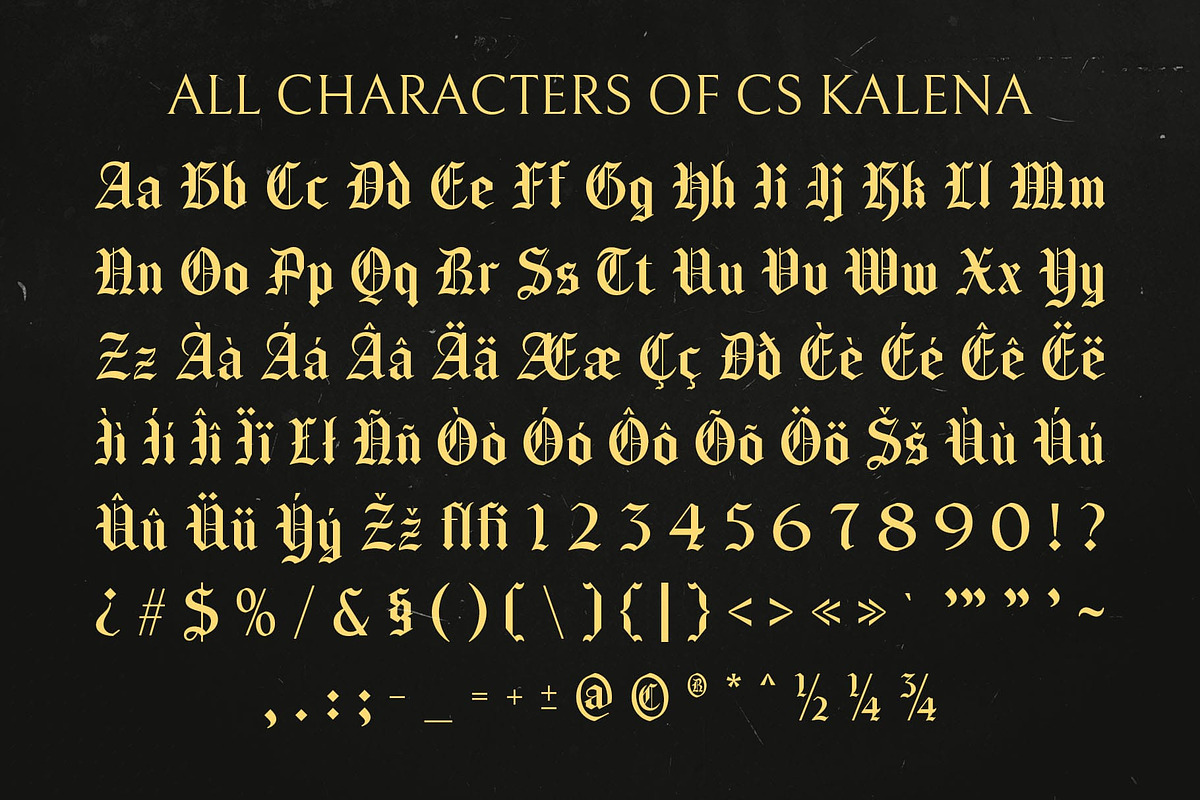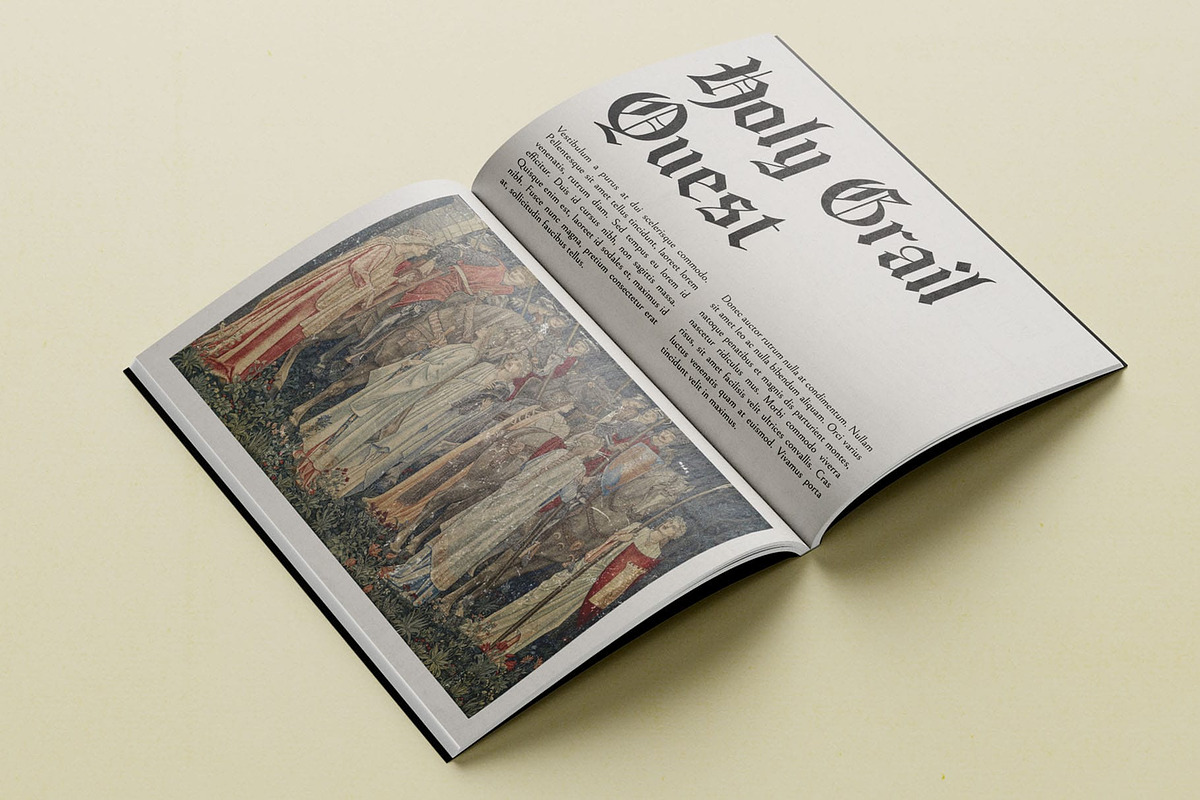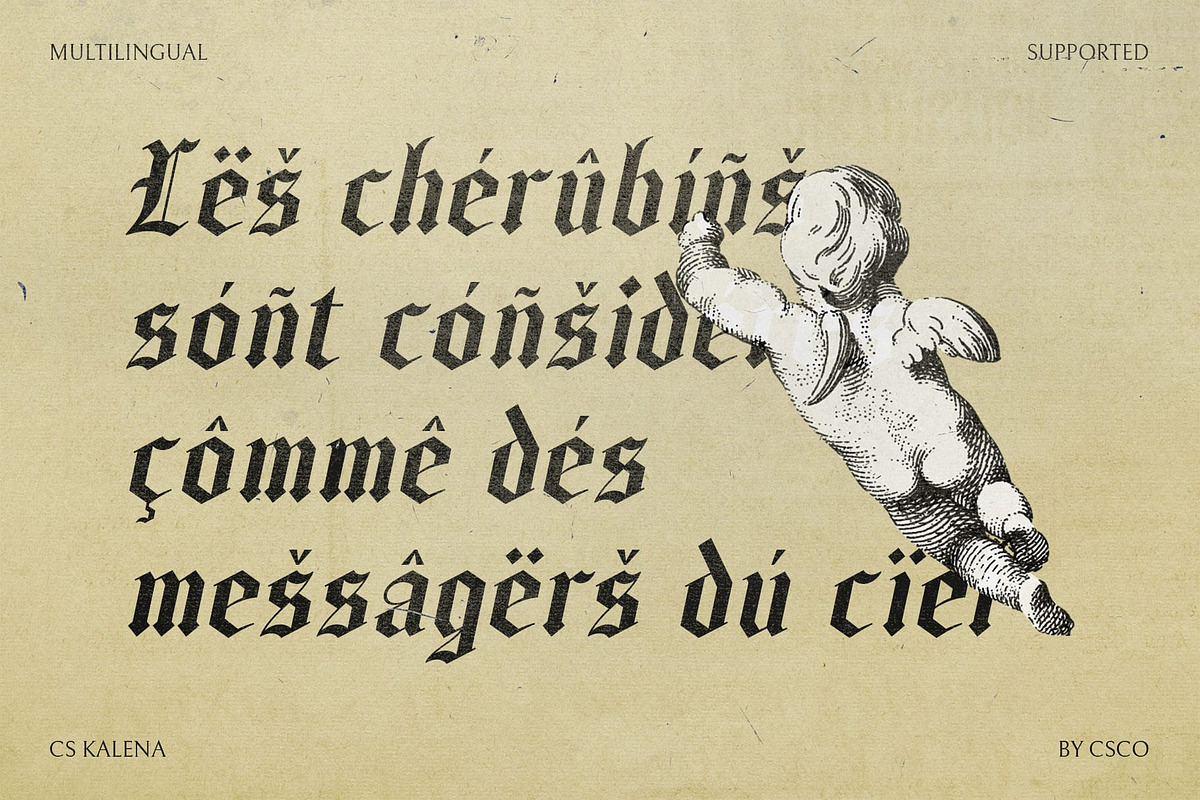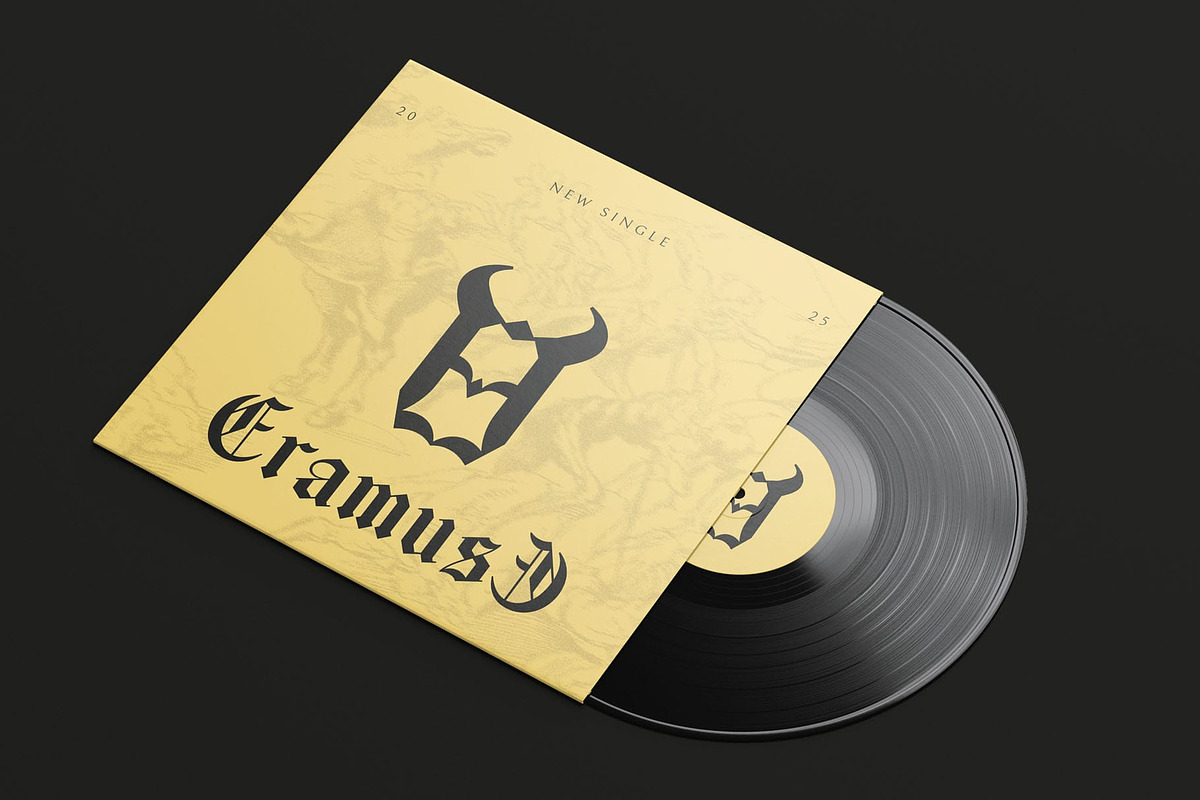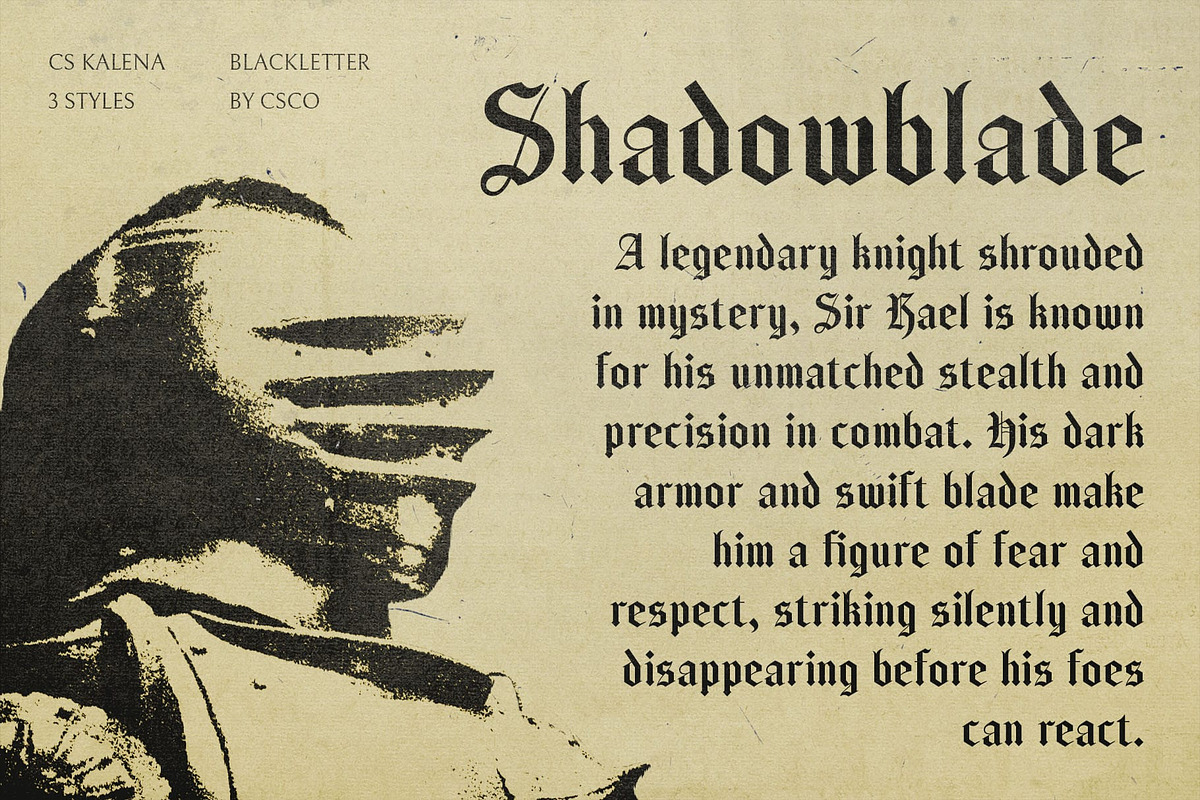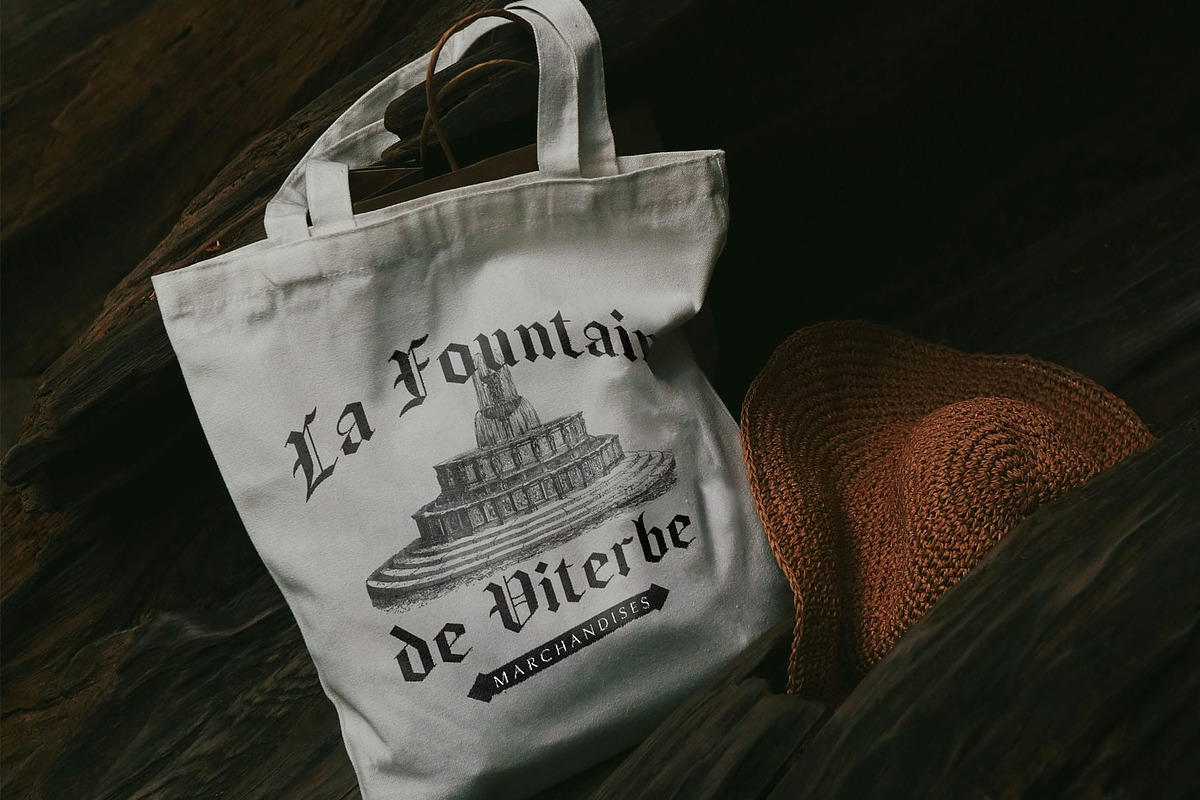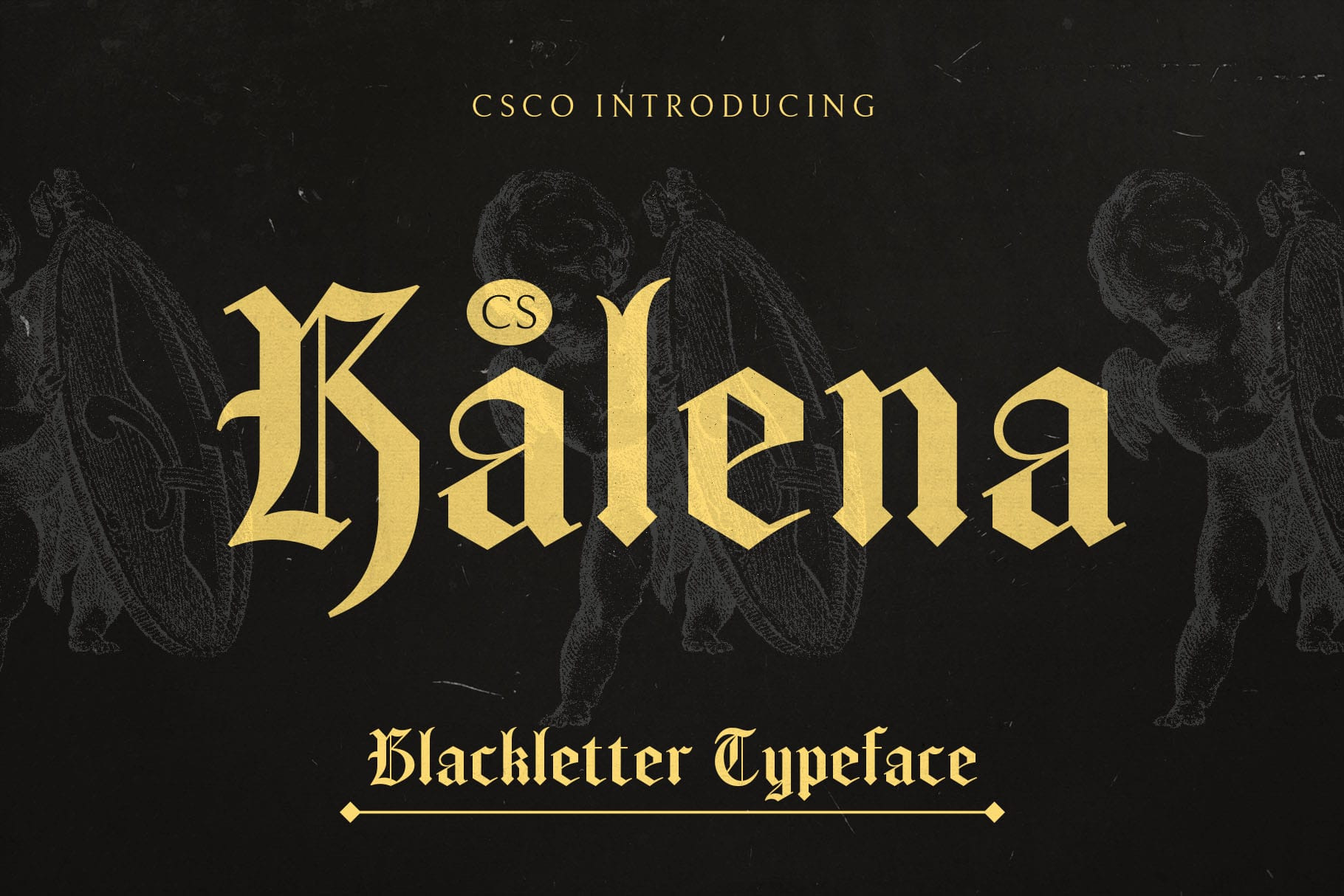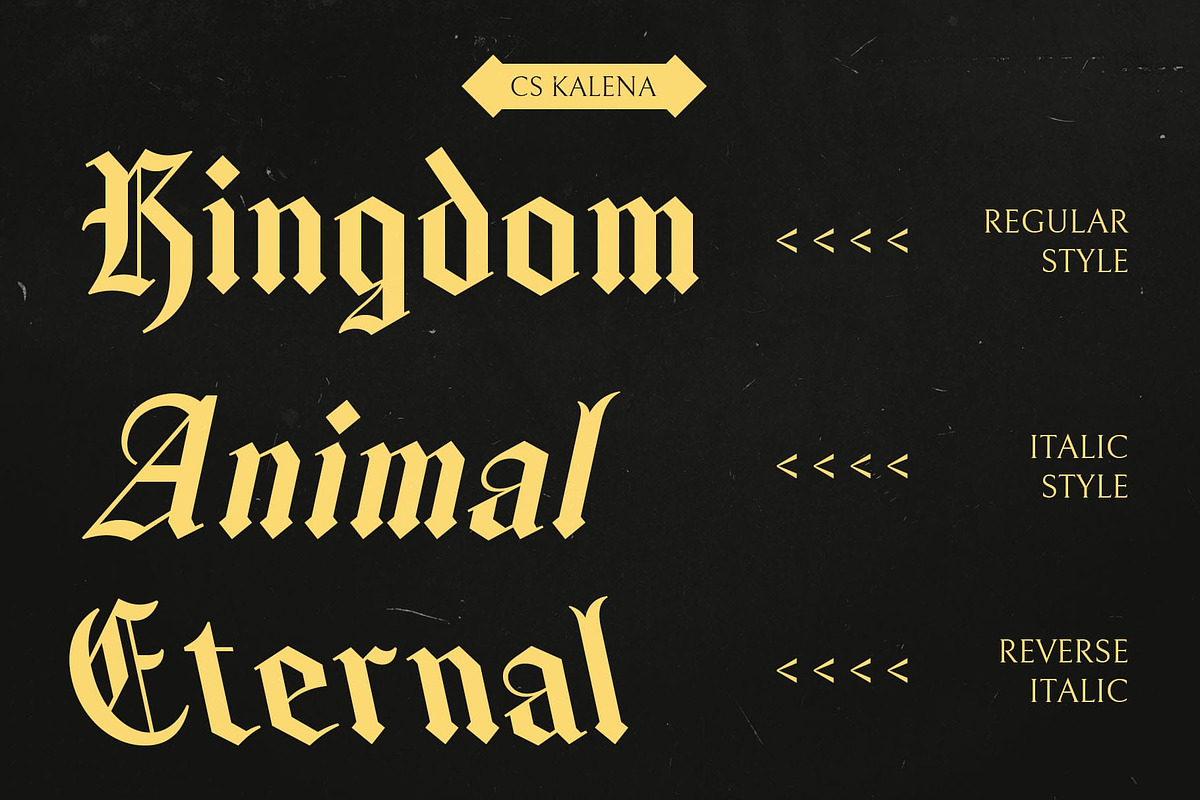
CS Kalena – Blackletter Font
CS Kalena – Blackletter Font: Embrace Timeless Elegance and Authority
Blackletter Display Font with Gothic Influence CS Kalena – Blackletter Font is a distinctive display typeface that draws inspiration from the ancient Gothic letters commonly found in Medieval manuscripts and early printed books. Featuring sharp, bold letterforms and meticulously crafted intricate details, this font brings together historical significance and contemporary design, capturing the essence of Gothic typography while maintaining a powerful visual presence.
Intricate Details for a Rich Historical Feel With its pointed ends and rigid vertical strokes, CS Kalena Font exudes a formal, classic appearance that evokes the feeling of centuries-old writing traditions. The carefully designed letterforms, complete with ornamental flourishes and subtle curves, offer a glimpse into a bygone era while infusing modern designs with a touch of grandeur. The font’s intricate detailing adds a depth that enriches any project, making it ideal for designs that require a strong sense of history, culture, and timeless elegance.
Strong, Bold Letterforms for Authority and Impact CS Kalena’s bold, commanding letterforms make it a font that stands out in any application. The thick strokes and sharp edges project strength, authority, and confidence, ensuring a visual impact that captures attention immediately. This font’s bold structure is perfect for designs aiming to communicate power and tradition, lending an air of gravitas to projects related to history, heritage, and culture.
- CS Kalena Regular
- CS Kalena Italic
- CS Kalena Reverse Italic